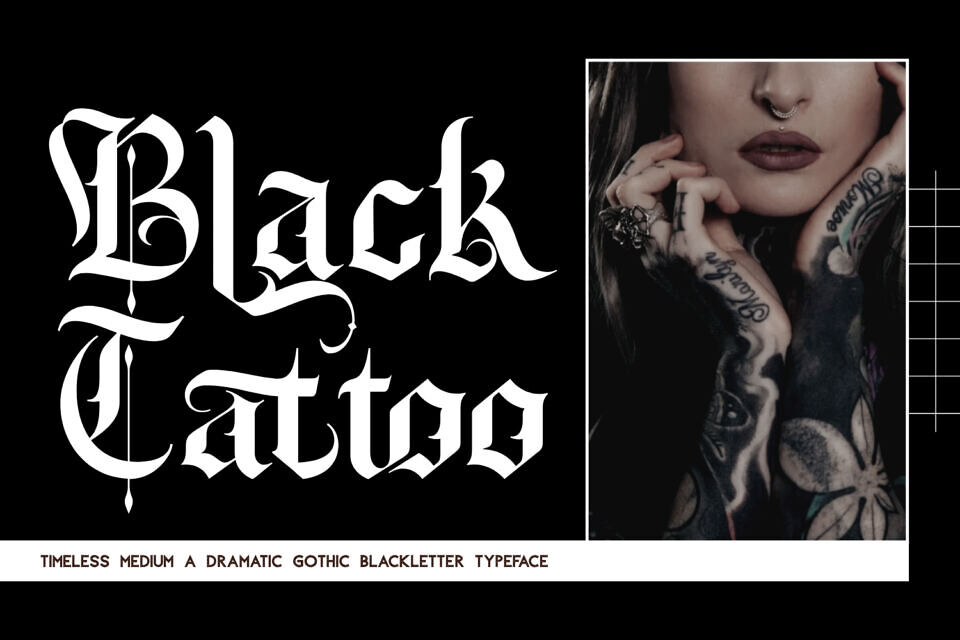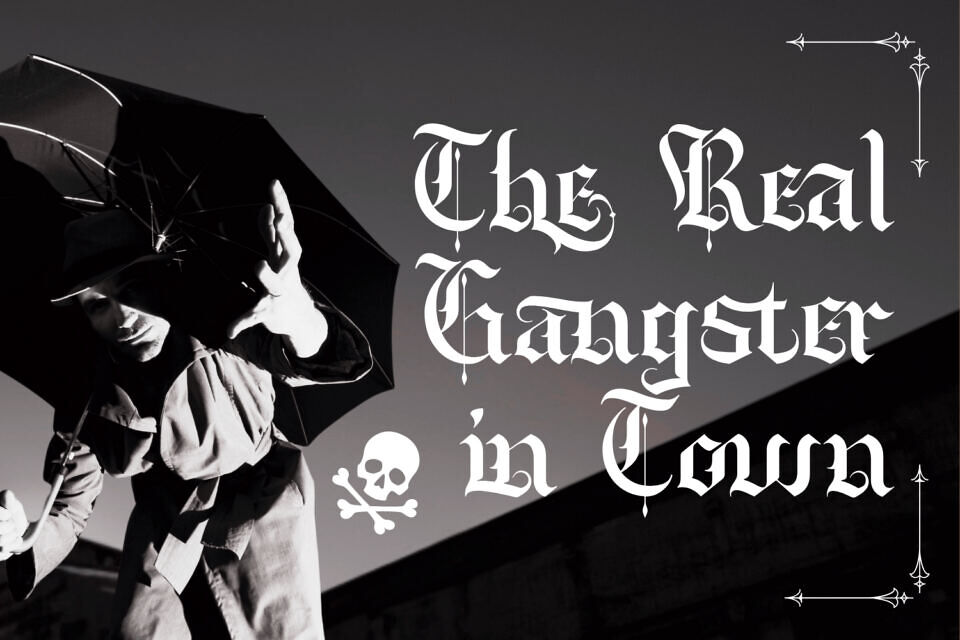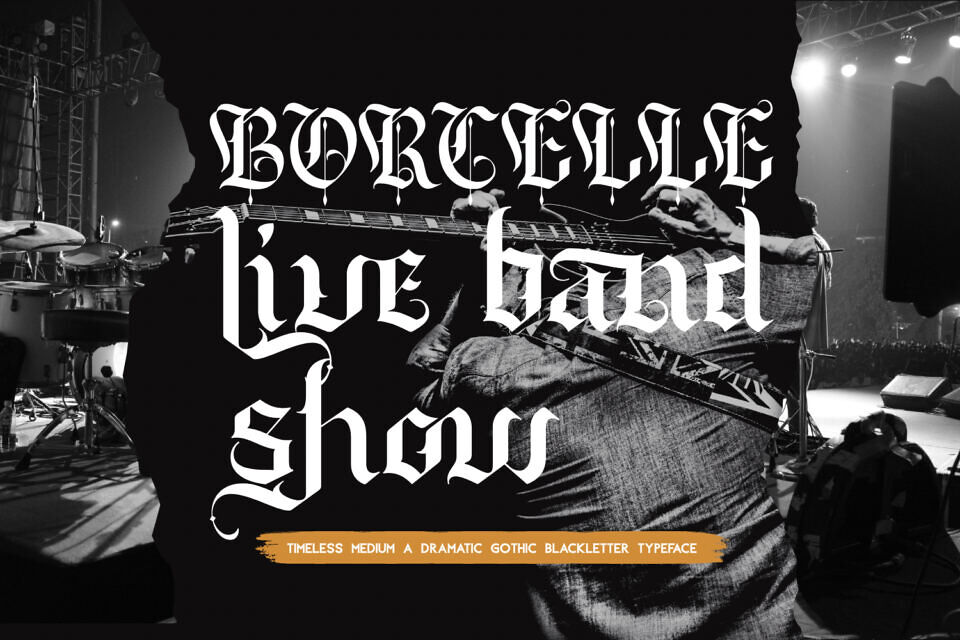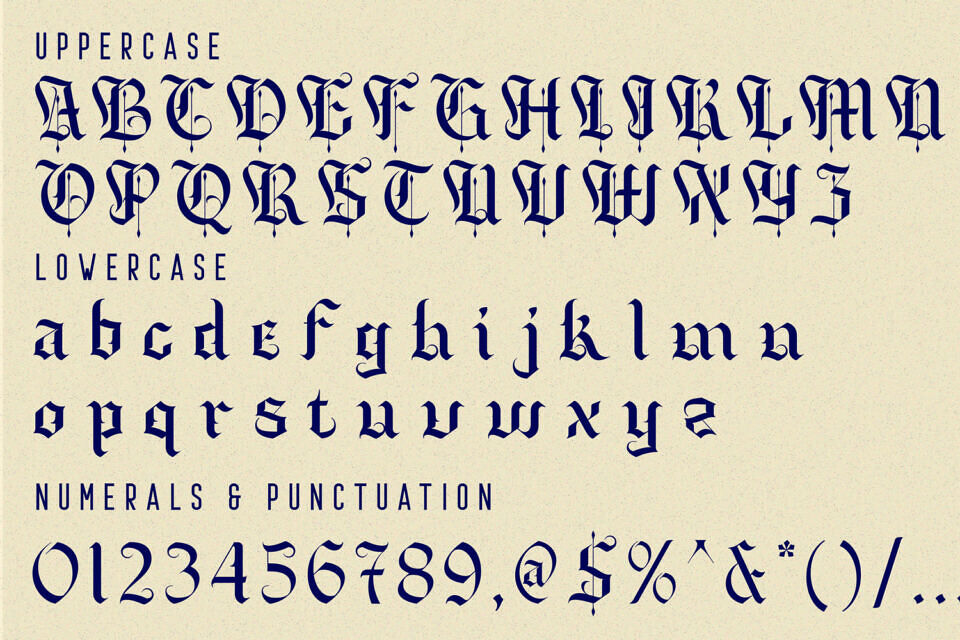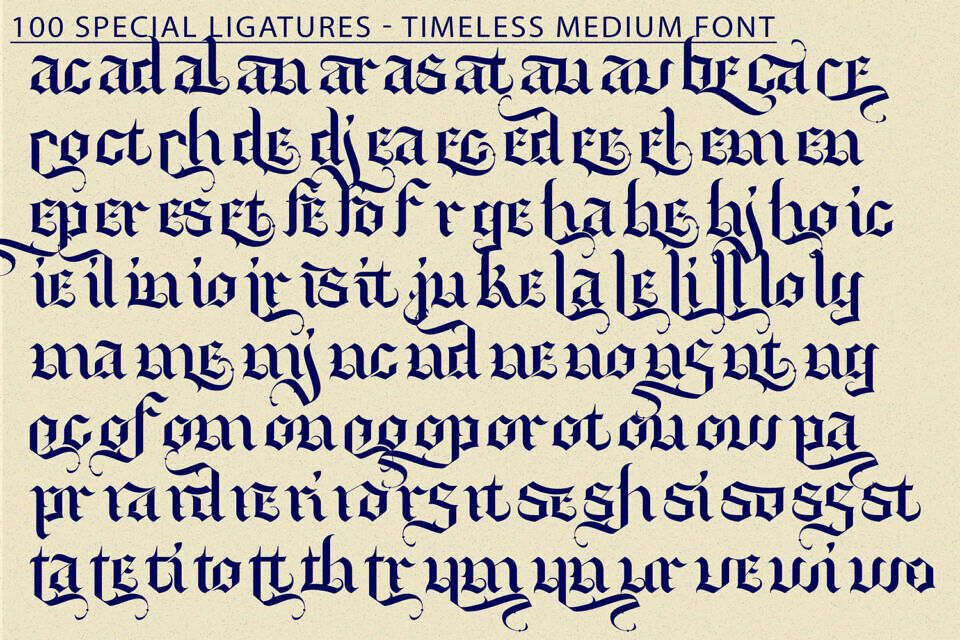
Timeless Medium Font
Timeless Medium is a powerful and dramatic bold blackletter font inspired by medieval calligraphy and Gothic traditions. Its sharp angular strokes, pointed serifs, and ornamental flourishes echo the visual culture of ancient manuscripts, religious scripts, and heraldic emblems.
Blending history with modern usability, Timeless Medium brings timeless elegance to any design — from heavy metal album covers and tattoo studios to vintage posters and dark-themed branding.